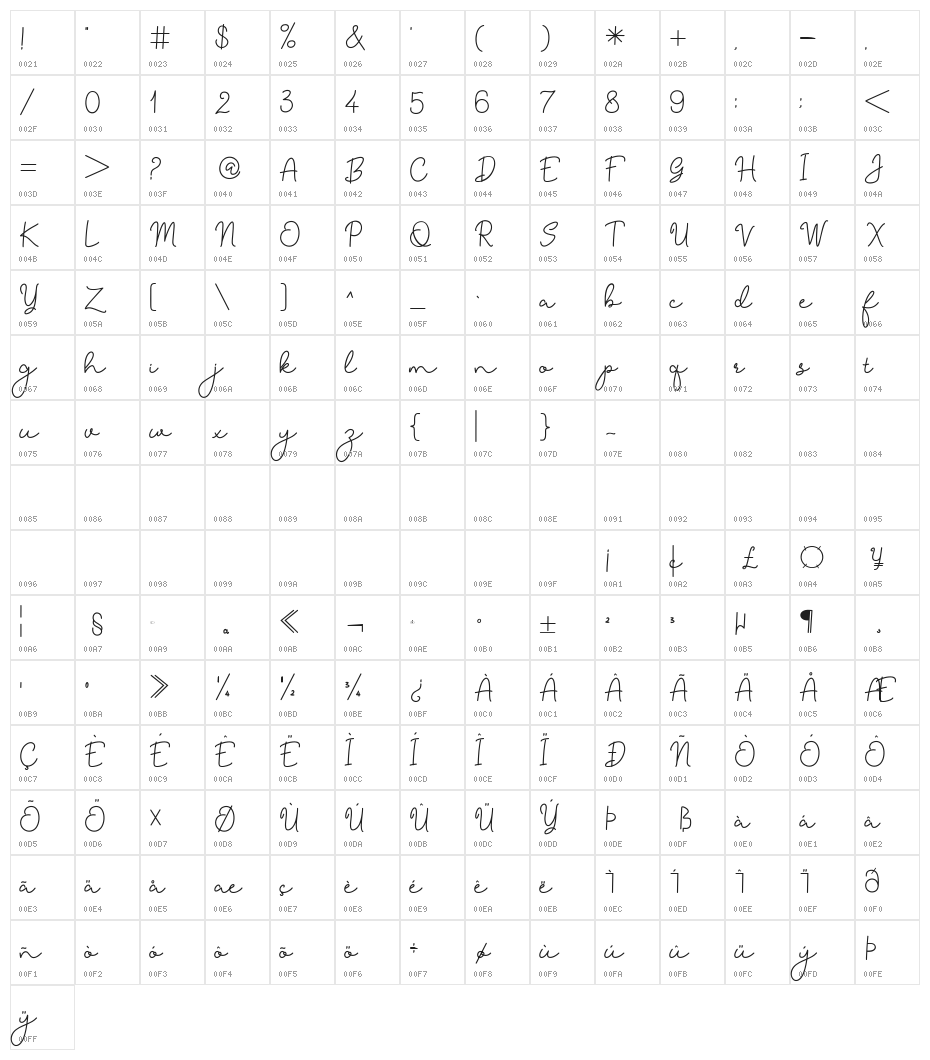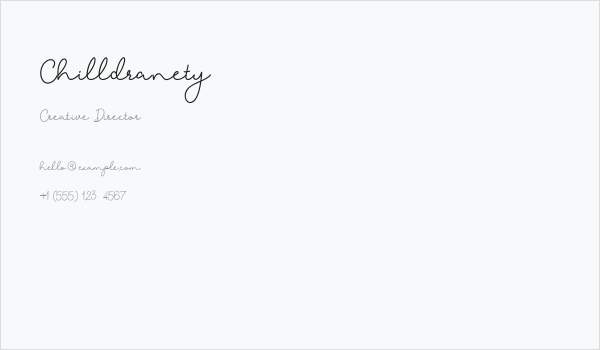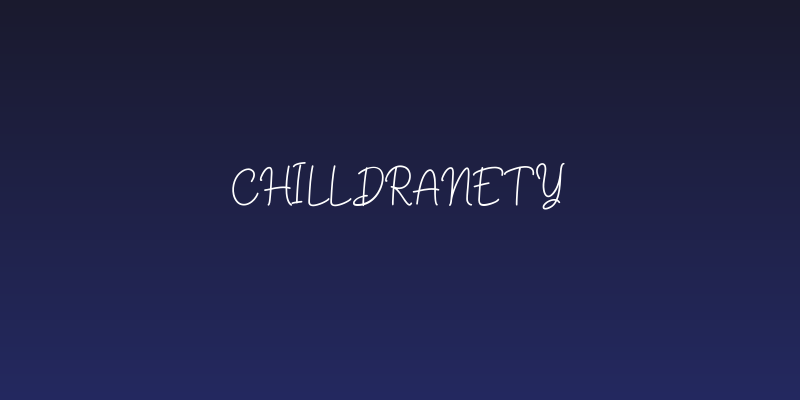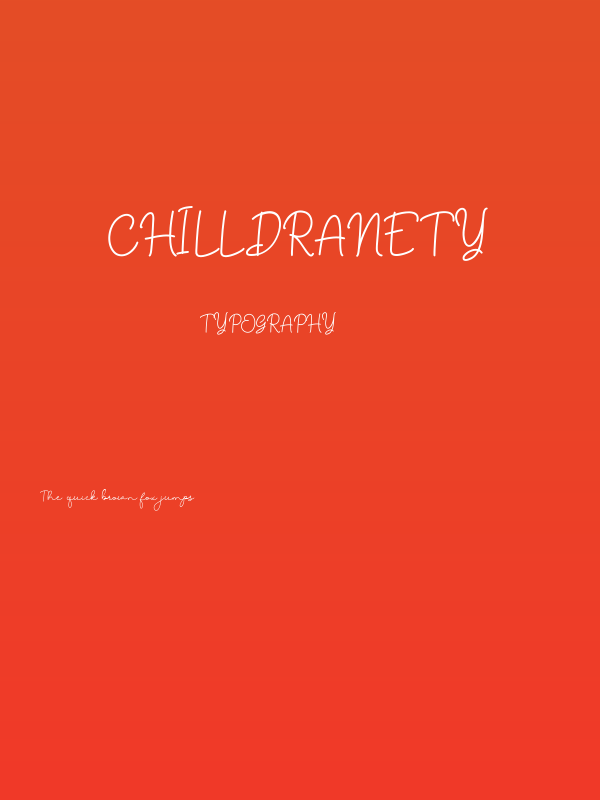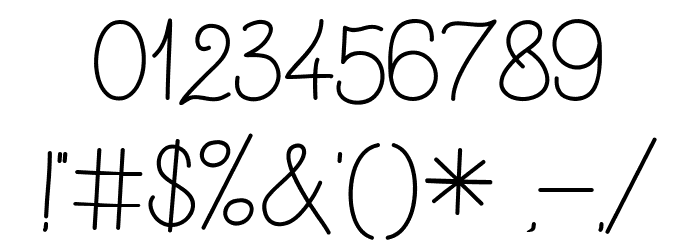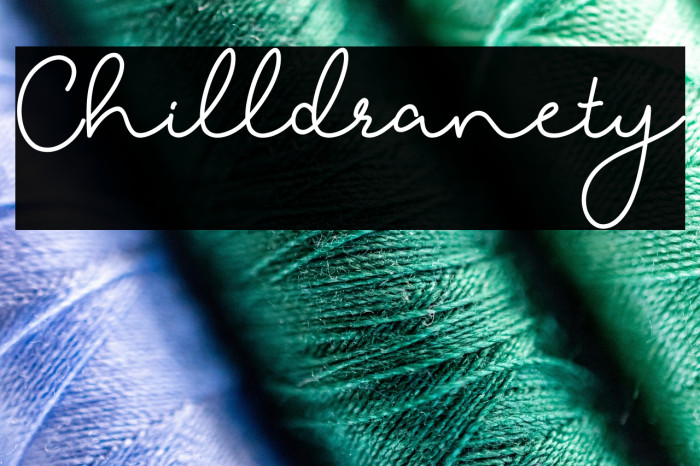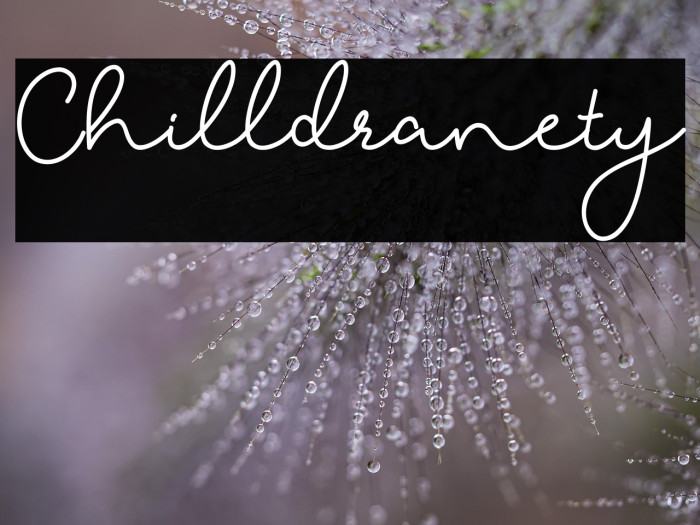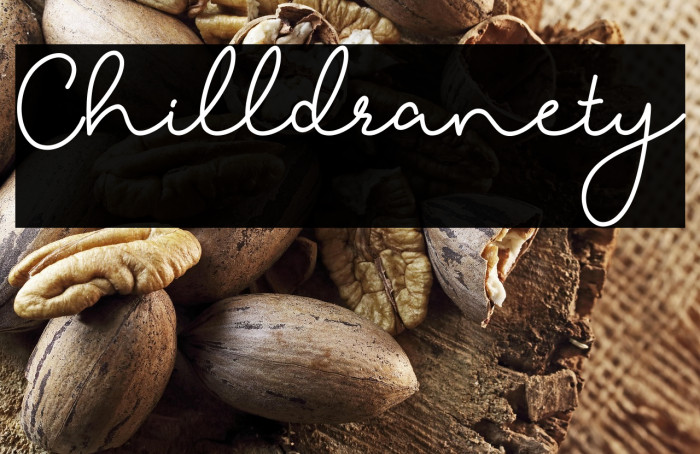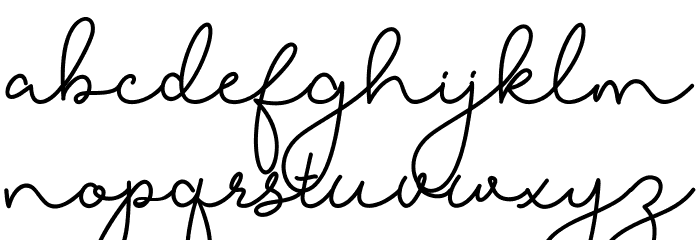
Chilldranety Font
Chilldranety Description
This font features a playful and elegant script style, characterized by its fluid and continuous strokes. The uppercase letters maintain a consistent height, with gentle curves that give a sense of movement and grace. The lowercase letters are intricately connected, enhancing the cursive appeal. Numbers and special characters are designed to match the overall aesthetic, with a harmonious balance between each element. The font's design is both modern and timeless, making it suitable for a variety of creative applications.
| Proposed Projects | Ideal for wedding invitations, greeting cards, branding projects, and social media graphics. |